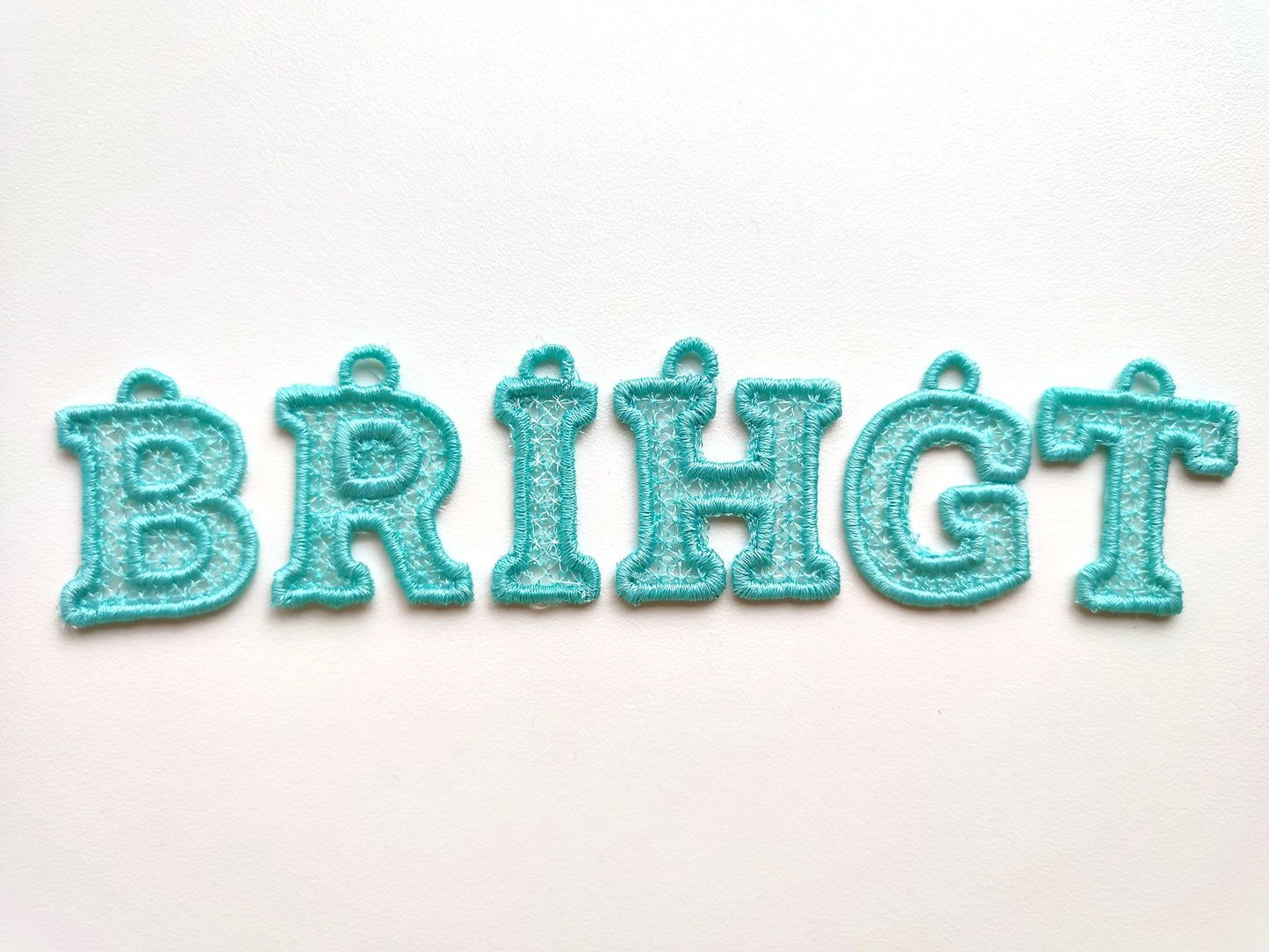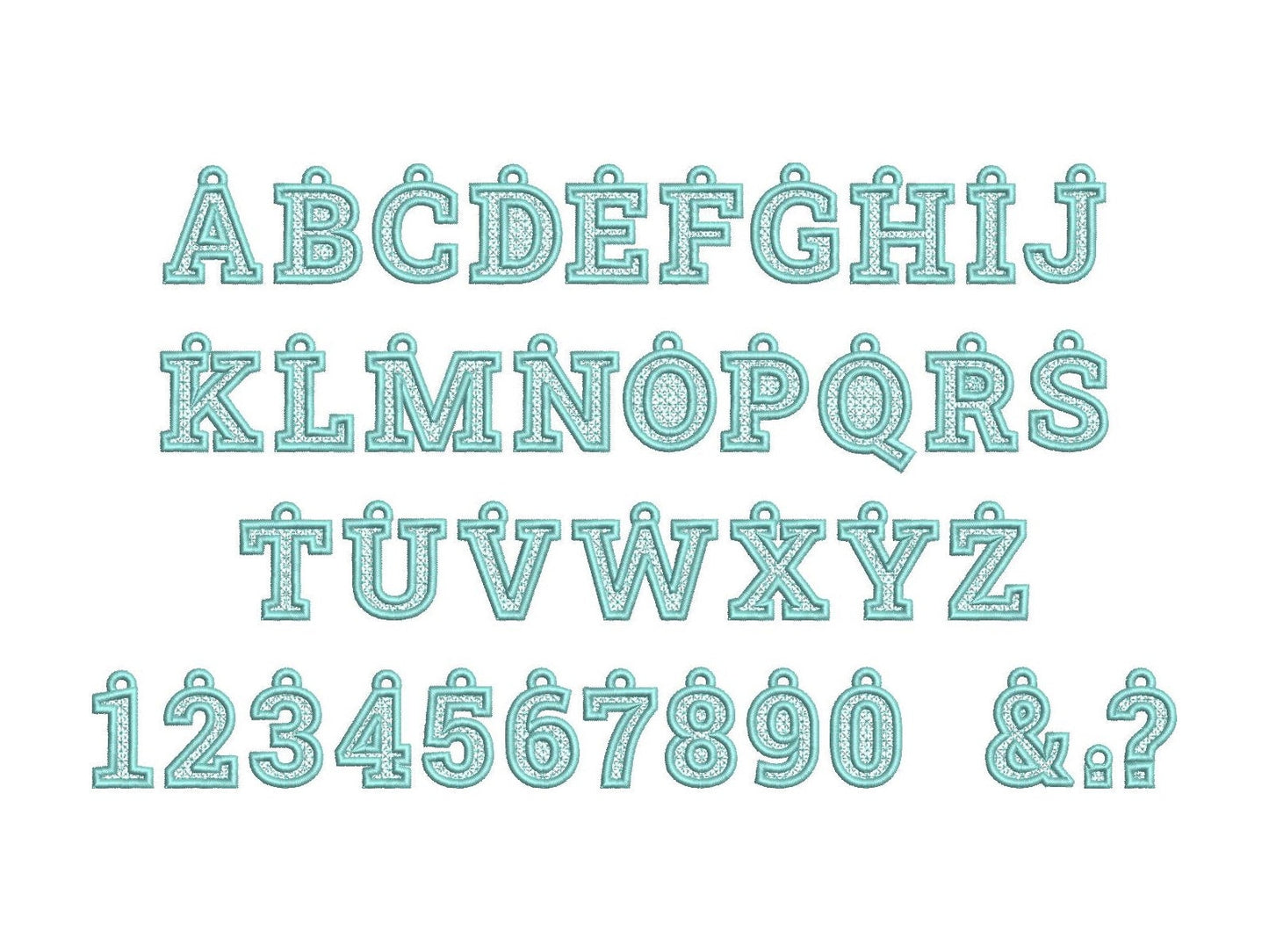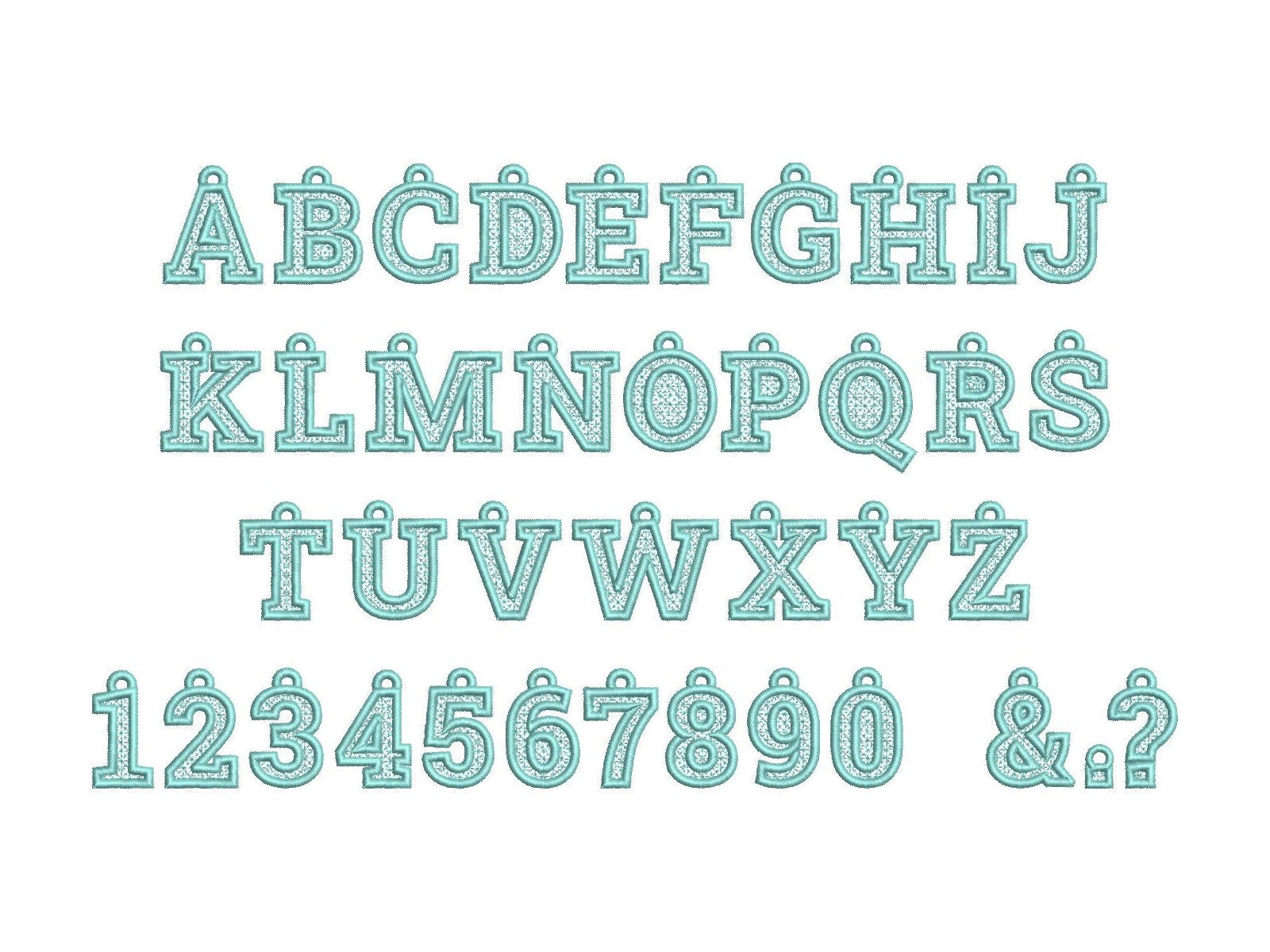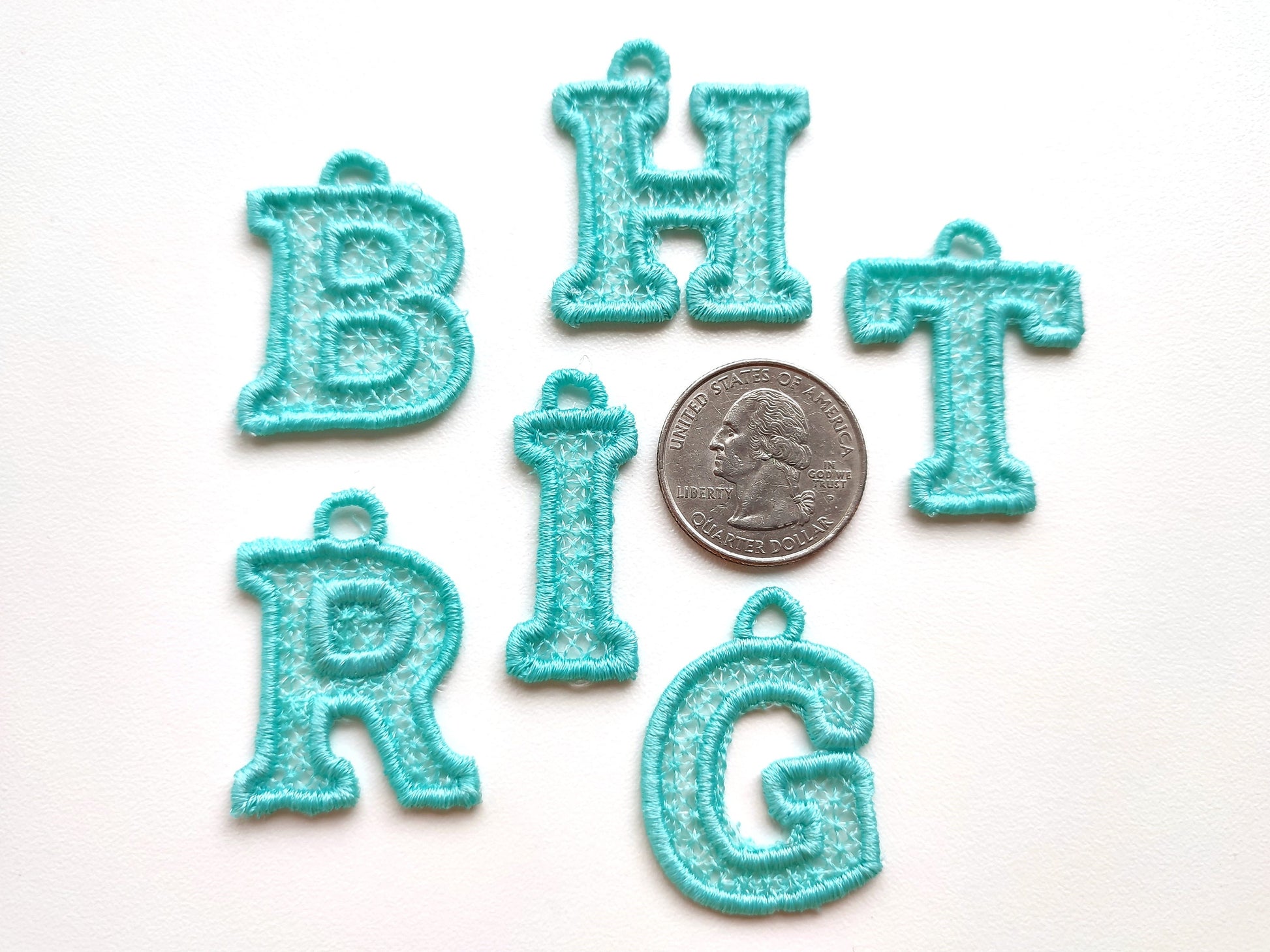
Or click to open the linkA free-standing lace font with a hanging loop on every letter. Lovely for earrings, pendants, gift tags, ornaments and bookmarks.
Uppercase letters A to Z, numbers 0 to 9 and &, period and question mark, in five sizes: 1, 1.3, 1.5, 2 and 2.3 inches. Free-standing lace stitched on wash-away stabilizer; H, K, M, N, U, V, X and Y come with one or two loops.